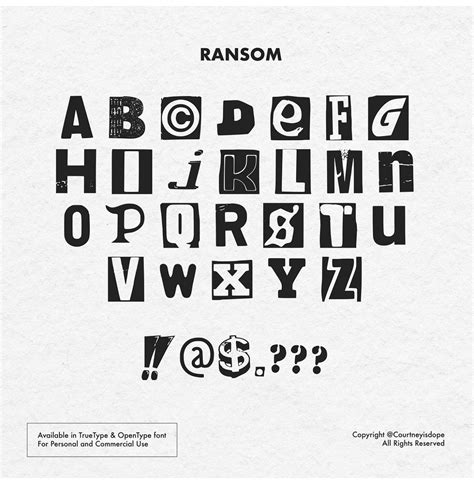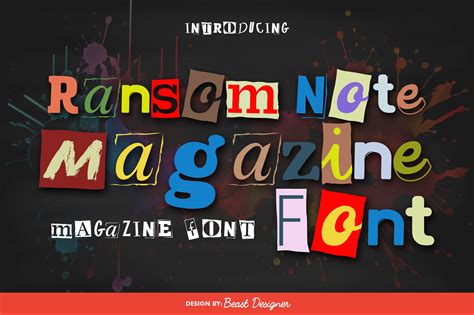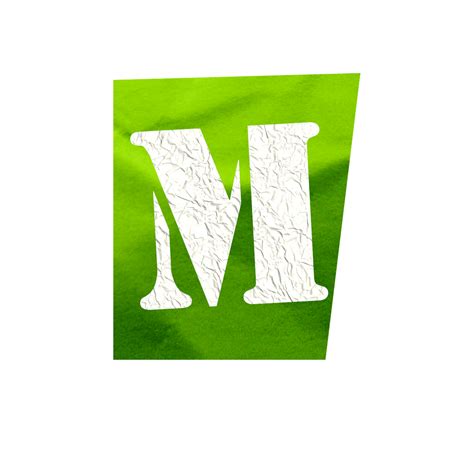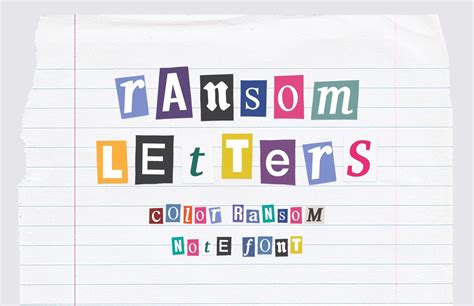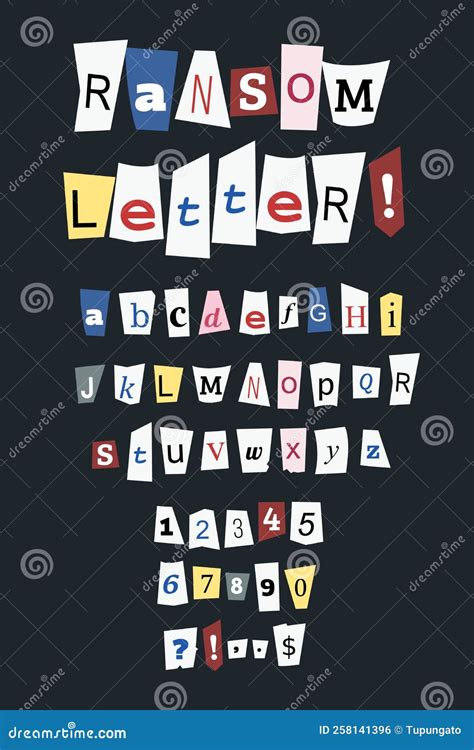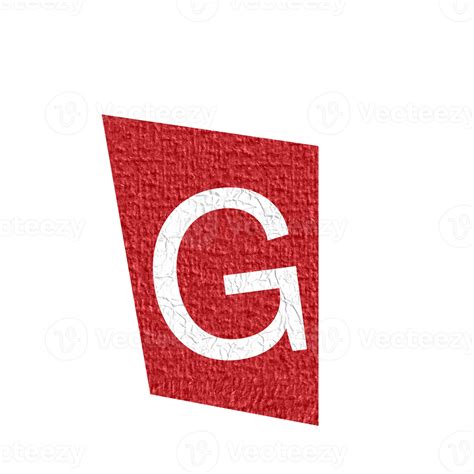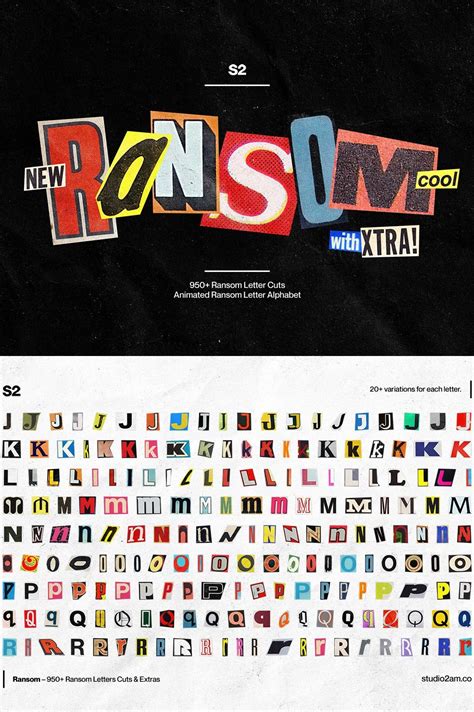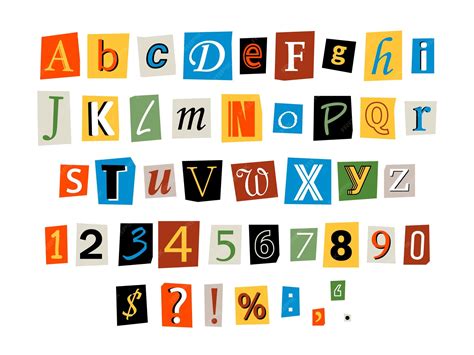
In the realm of typography, certain fonts hold a unique and often sinister allure. Among these, ransom letter fonts stand out as a fascinating and somewhat eerie subset. These fonts are designed to mimic the handwritten style often associated with ransom notes, adding a layer of intrigue and mystery to any project they are used in. Whether for creative writing, graphic design, or even educational purposes, ransom letter fonts offer a distinctive aesthetic that can captivate audiences and convey a sense of urgency or drama.
Understanding Ransom Letter Fonts
Ransom letter fonts are characterized by their irregular, hand-drawn appearance. They often feature uneven lettering, varying stroke widths, and a lack of uniformity that mimics the hurried, often panicked writing style of a ransom note. This unique aesthetic makes them particularly effective for projects that require a sense of authenticity or urgency.
These fonts are not just about aesthetics; they also carry a historical and cultural significance. The classic ransom note, often seen in crime dramas and thrillers, has become an iconic symbol of suspense and danger. By using ransom letter fonts, designers and writers can tap into this cultural trove, adding depth and intrigue to their work.
Popular Ransom Letter Fonts
There are several popular ransom letter fonts that have gained traction in the design community. Each of these fonts offers a unique take on the handwritten ransom note style, making them versatile for different projects. Here are a few notable examples:
- Ransom Note: This font is a classic choice, featuring a rough, hand-drawn style that closely resembles traditional ransom notes. It's perfect for projects that require a sense of urgency and authenticity.
- Cutout: This font offers a more stylized take on the ransom note aesthetic, with clean, cut-out lettering that still maintains a handwritten feel. It's ideal for modern designs that need a touch of vintage charm.
- Ransom: Another popular choice, this font features a more irregular and chaotic style, making it perfect for projects that require a sense of chaos or panic.
- Ransom Note 2: This font is a more refined version of the classic ransom note style, with smoother lines and a more polished appearance. It's great for projects that need a balance between authenticity and readability.
Using Ransom Letter Fonts in Design
Ransom letter fonts can be used in a variety of design projects, from graphic design to web design and beyond. Here are some tips for effectively incorporating these fonts into your work:
- Choose the Right Font: Select a ransom letter font that best fits the tone and style of your project. For example, if you're designing a poster for a thriller movie, a more chaotic font might be appropriate. For a vintage-inspired design, a cleaner, more stylized font could work better.
- Pair with Complementary Fonts: Ransom letter fonts can be quite bold and attention-grabbing. Pairing them with more subdued, complementary fonts can help balance the design and make the text more readable.
- Use Sparingly: Because of their unique and often chaotic appearance, ransom letter fonts should be used sparingly. Overusing them can make your design look cluttered and difficult to read.
- Consider Readability: While ransom letter fonts can add a lot of character to a design, it's important to ensure that the text remains readable. Use larger font sizes and adequate spacing to make sure your message comes across clearly.
Creating Your Own Ransom Letter Font
If you're feeling creative, you can even design your own ransom letter font. Here are some steps to guide you through the process:
- Sketch Your Design: Start by sketching out your font design on paper. Experiment with different letter shapes, stroke widths, and irregularities to achieve the desired handwritten look.
- Digitize Your Sketch: Use a graphic design tool like Adobe Illustrator or Inkscape to digitize your sketch. This will allow you to refine your design and create a vector version of your font.
- Create Font Files: Use font creation software like FontForge or Glyphs to convert your vector design into a usable font file. This software will help you define the character set, spacing, and other important font properties.
- Test Your Font: Once your font is created, test it out in various applications to ensure it works as expected. Make any necessary adjustments to improve readability and usability.
π‘ Note: Creating a font from scratch can be a complex process, so be prepared to spend some time learning the tools and techniques involved.
Ransom Letter Fonts in Popular Culture
Ransom letter fonts have made their mark in popular culture, appearing in various forms of media. From movies and TV shows to video games and literature, these fonts have been used to create a sense of suspense and intrigue. Here are a few notable examples:
- Movies and TV Shows: Ransom letter fonts are often used in crime dramas and thrillers to create a sense of urgency and danger. For example, the classic ransom note scene in the movie "Se7en" features a handwritten note that adds to the film's tense atmosphere.